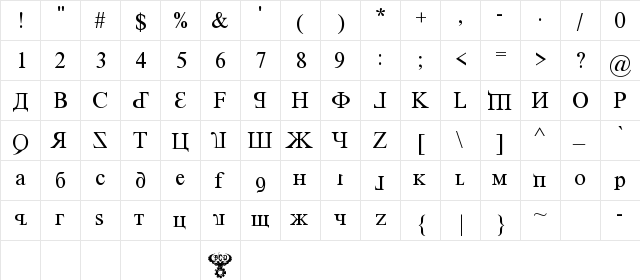
Kremlin Premier Regular Font Preview
Kremlin Premier Regular
Design Context for Kremlin Premier Typeface
Kremlin Premier takes a measured approach to typography — its balanced proportions and neutral character make it a reliable workhorse for both digital and print work.